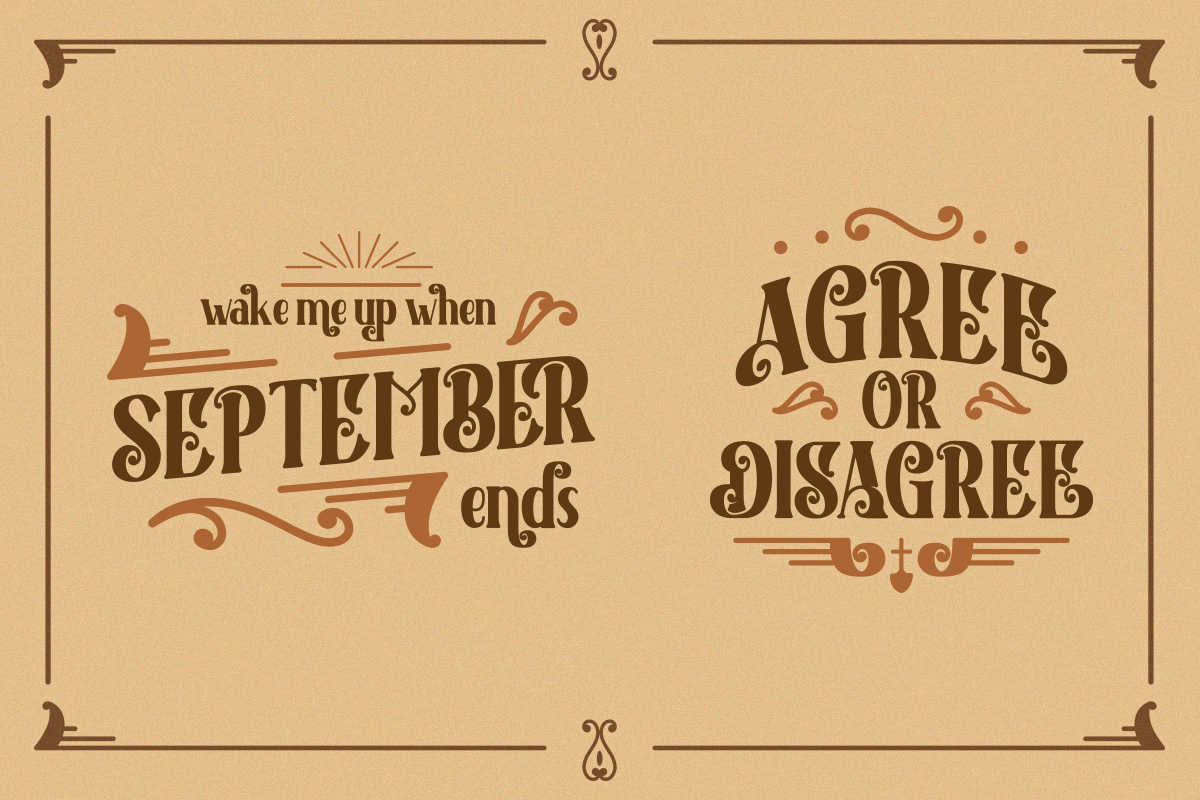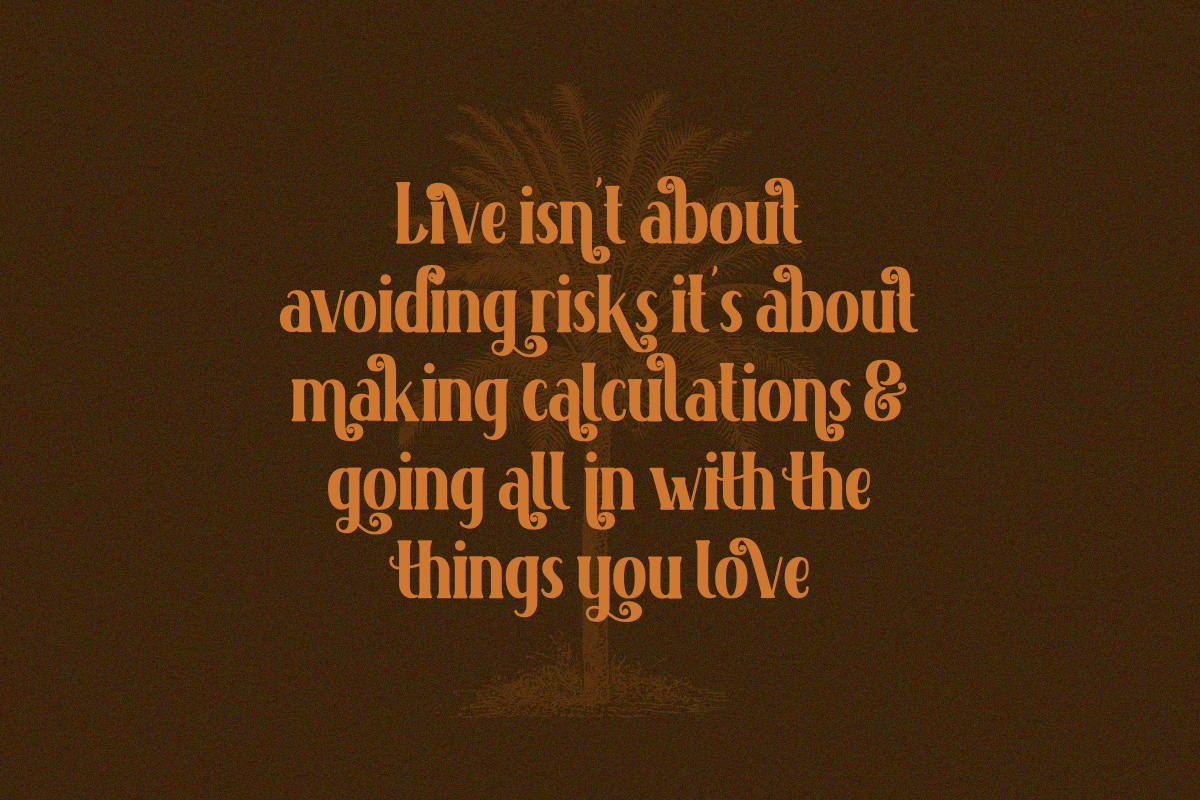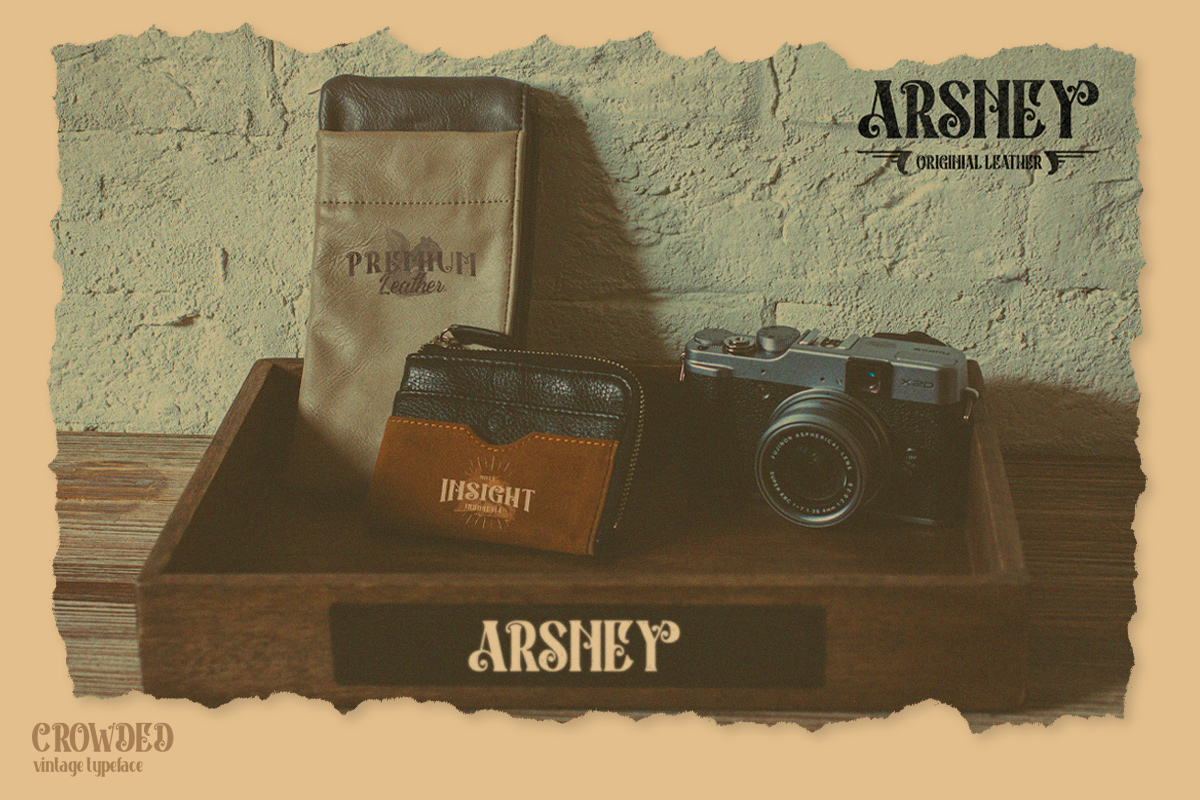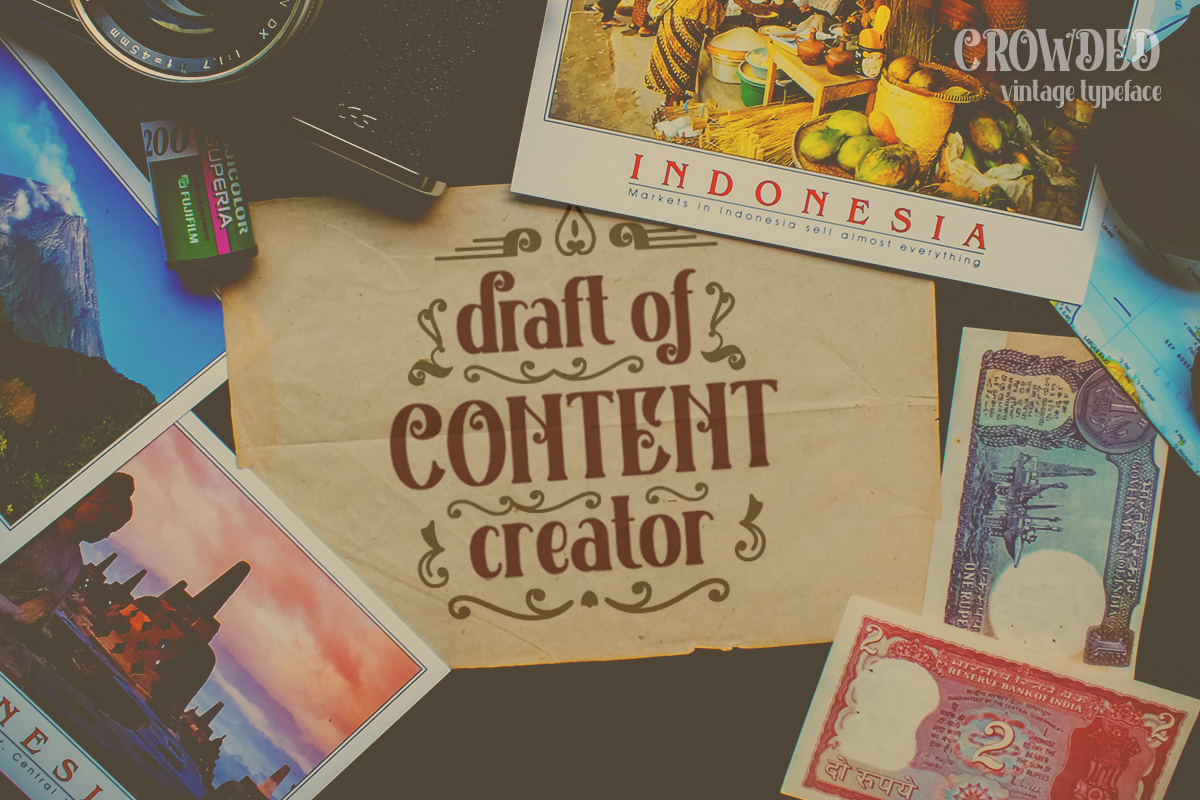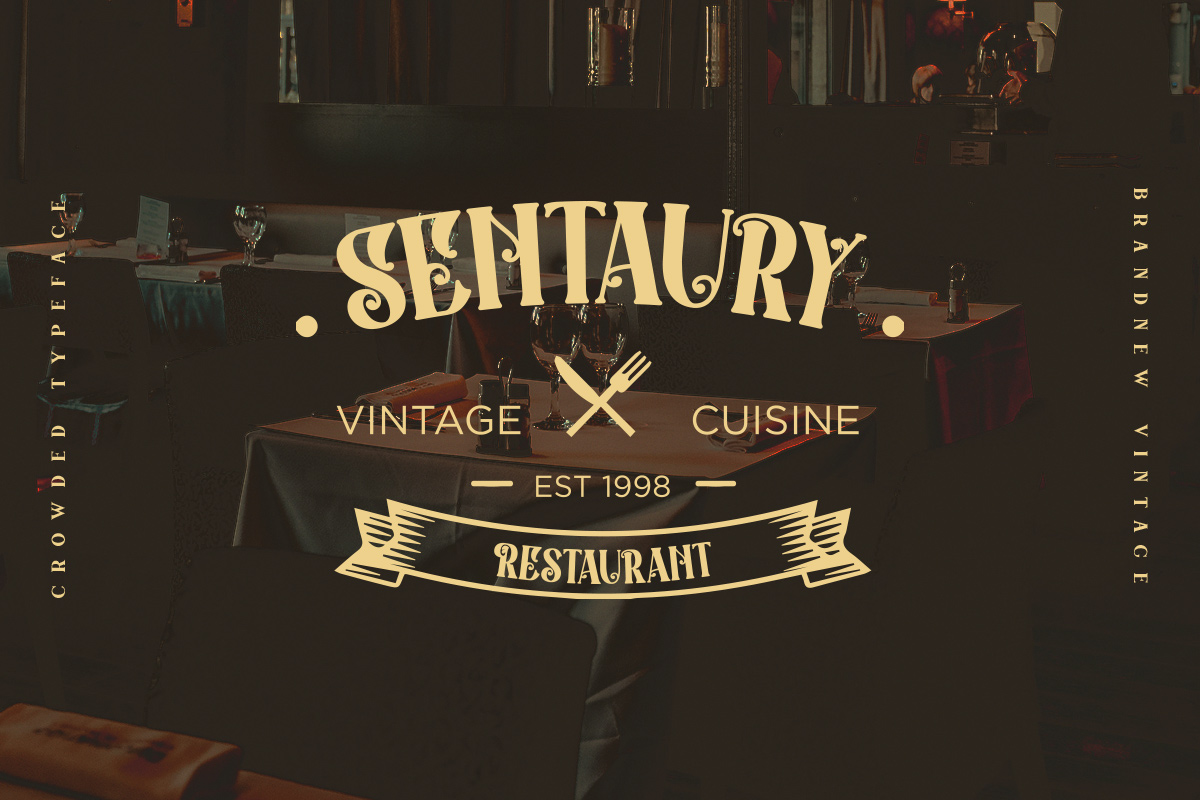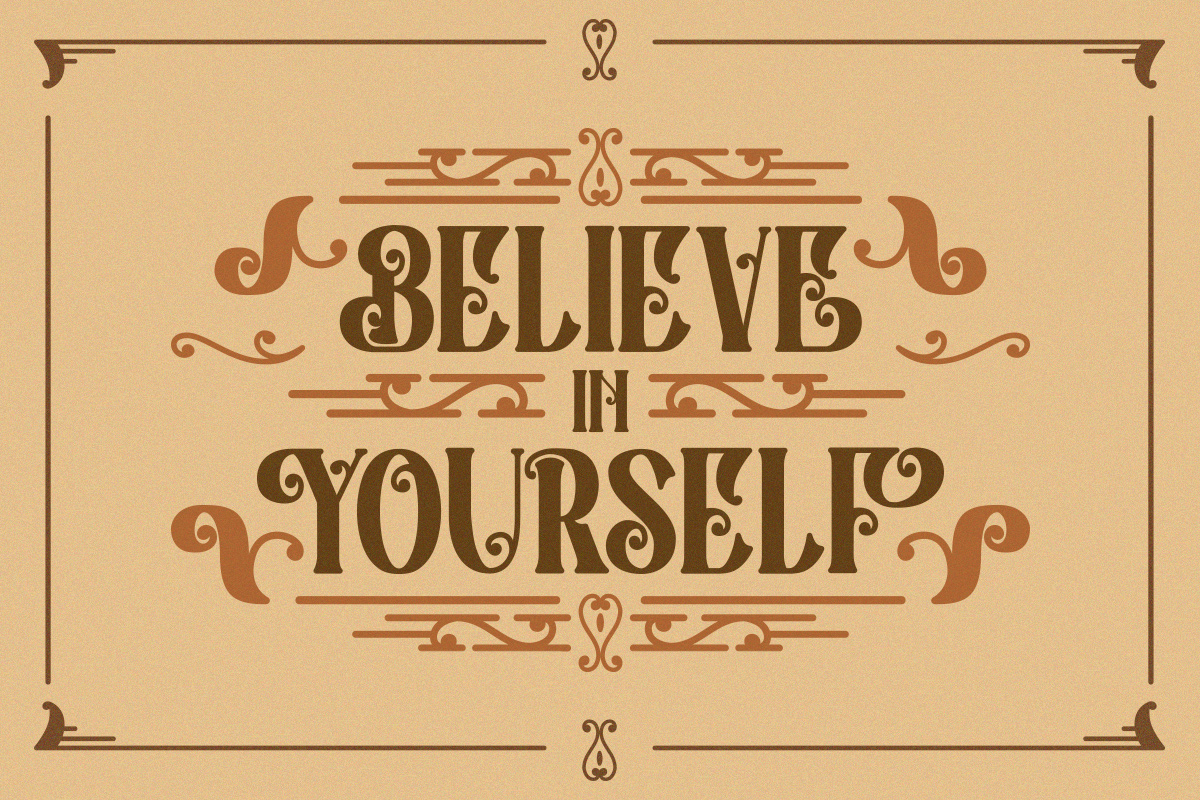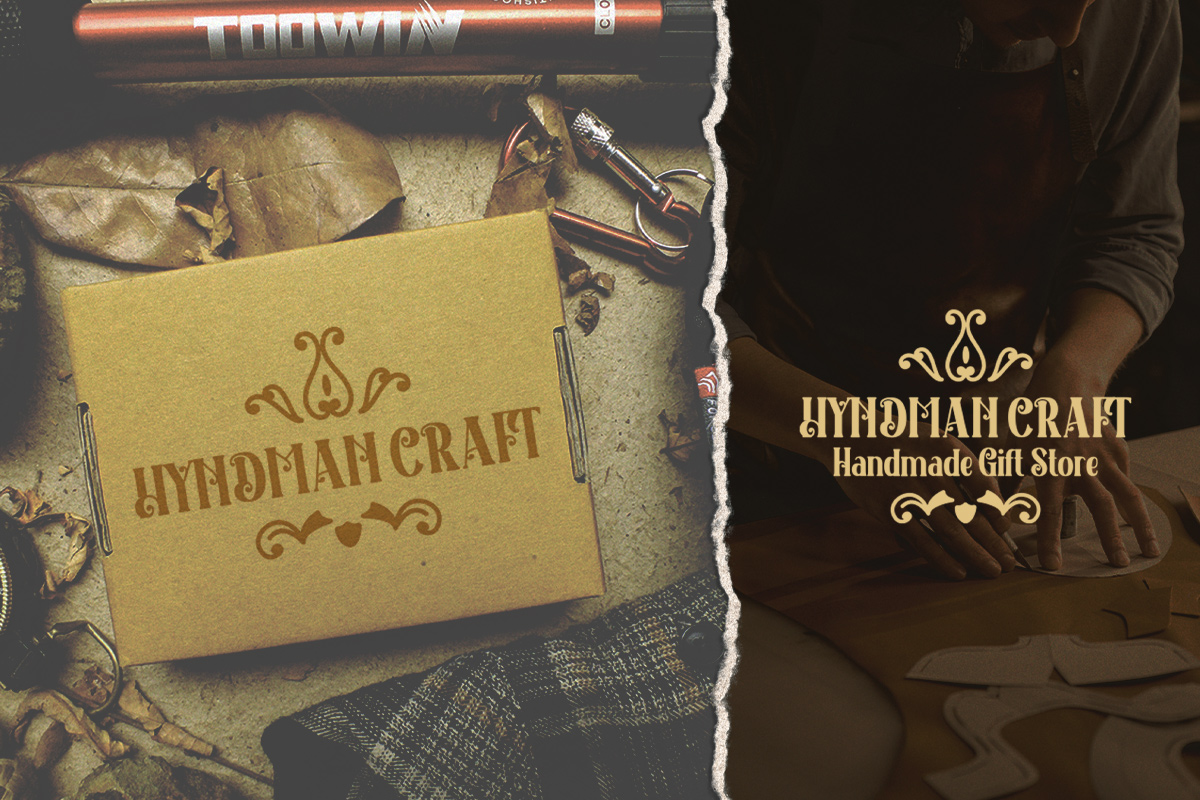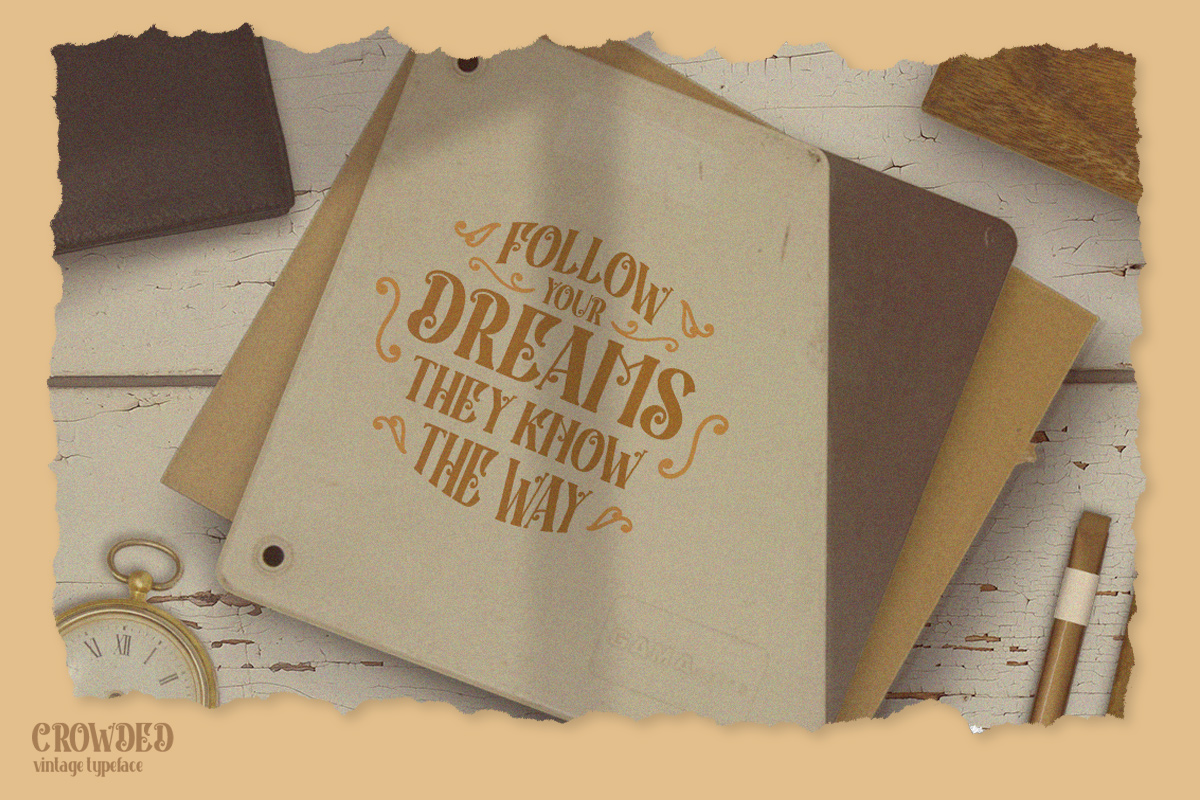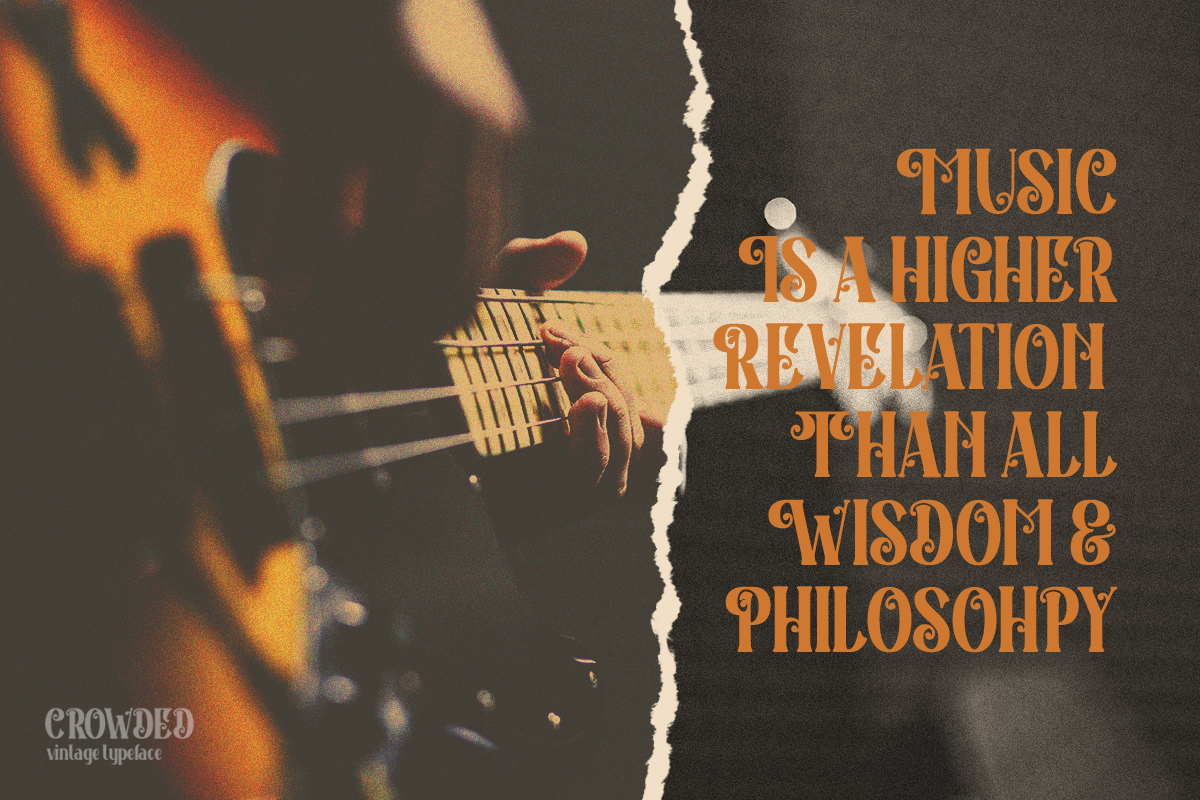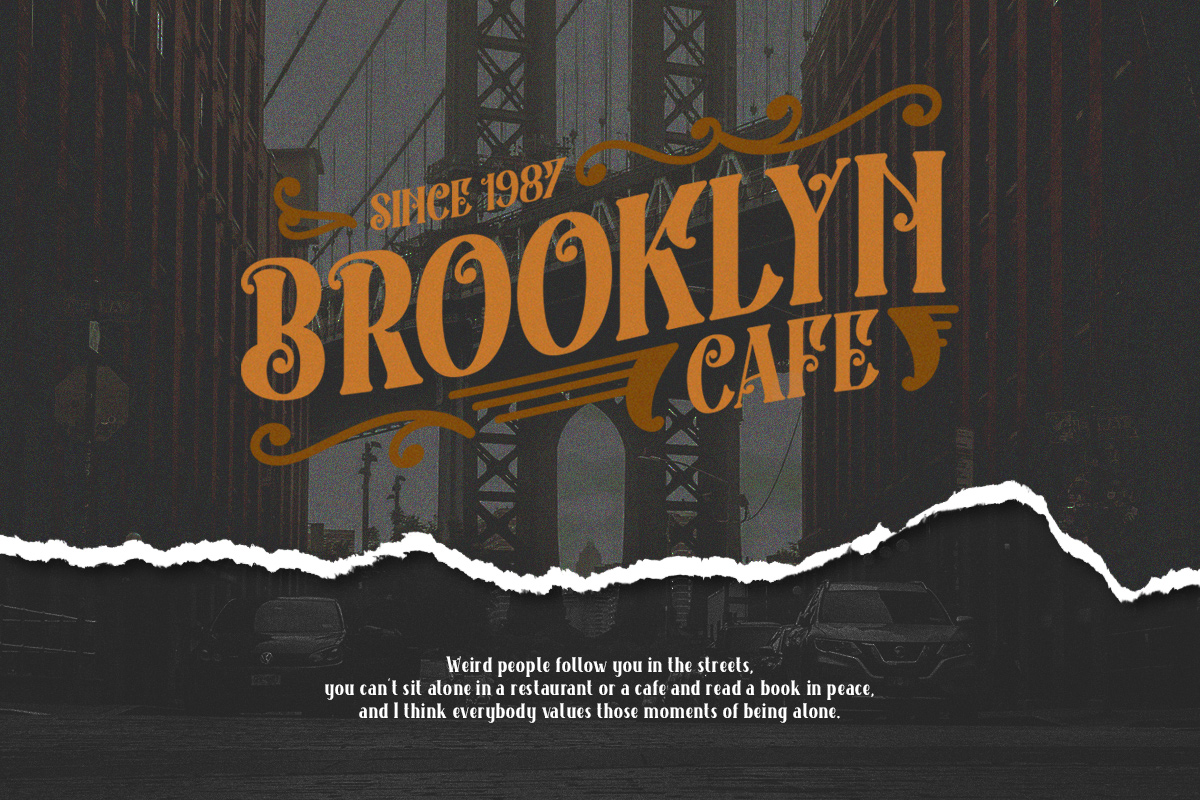
Crowded
Crowded rounded vintage font was created by our talented artist with a full passion for vintage display. You will find a fresh vintage sensation.
Featured:
• Accents (Multilingual characters)
• 16 Ligatures
• 79 Alternates
• Numerals and Punctuation (OpenType Standard)
• Bonus ornaments